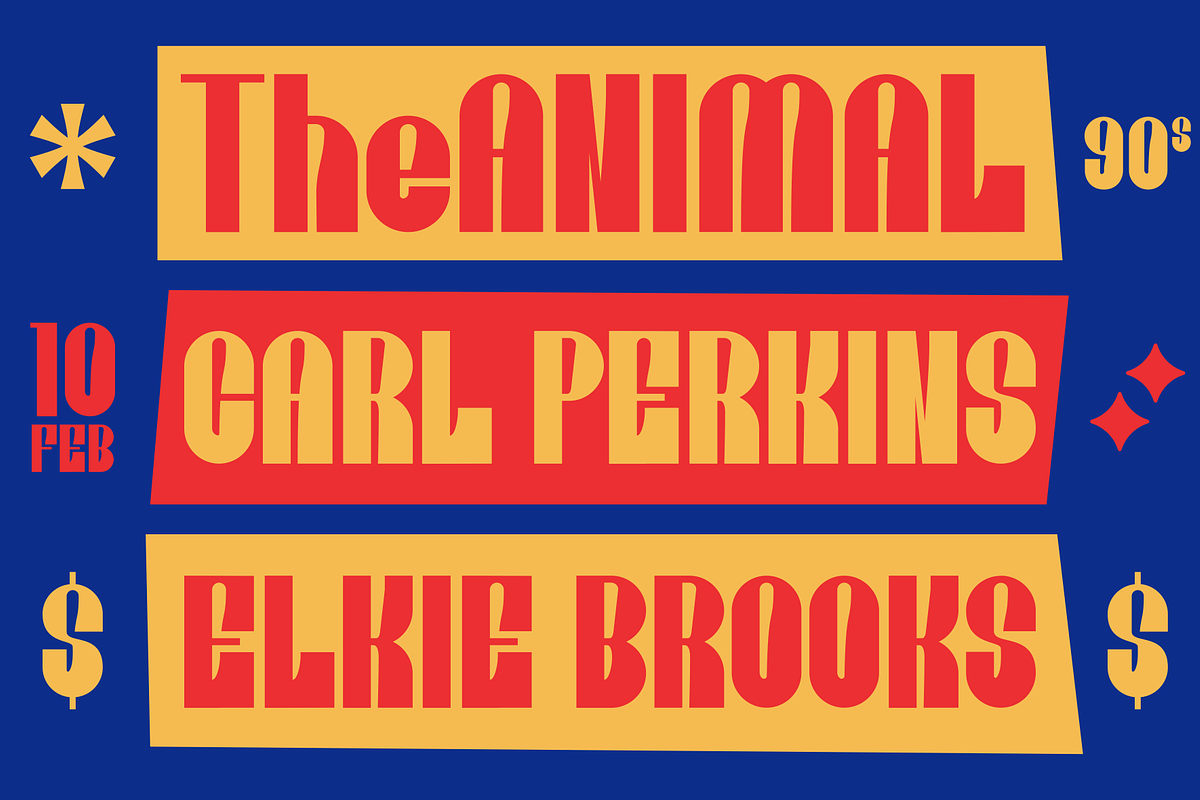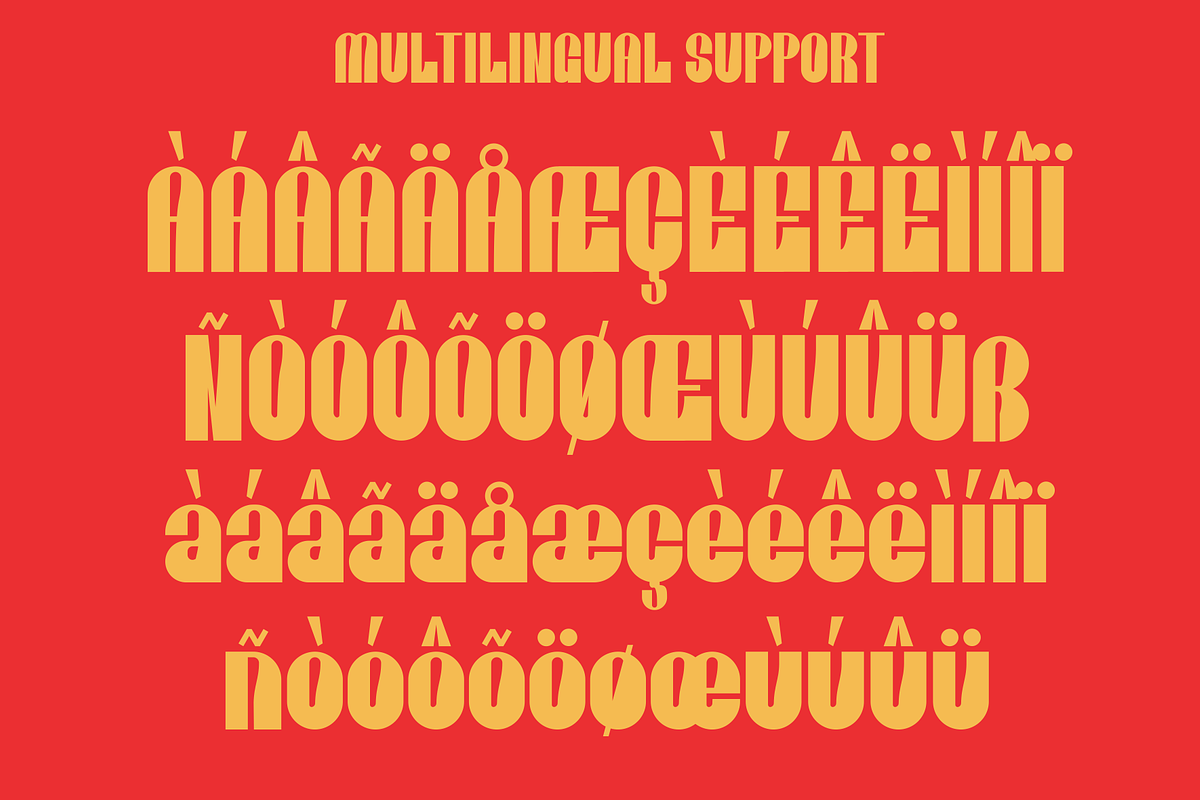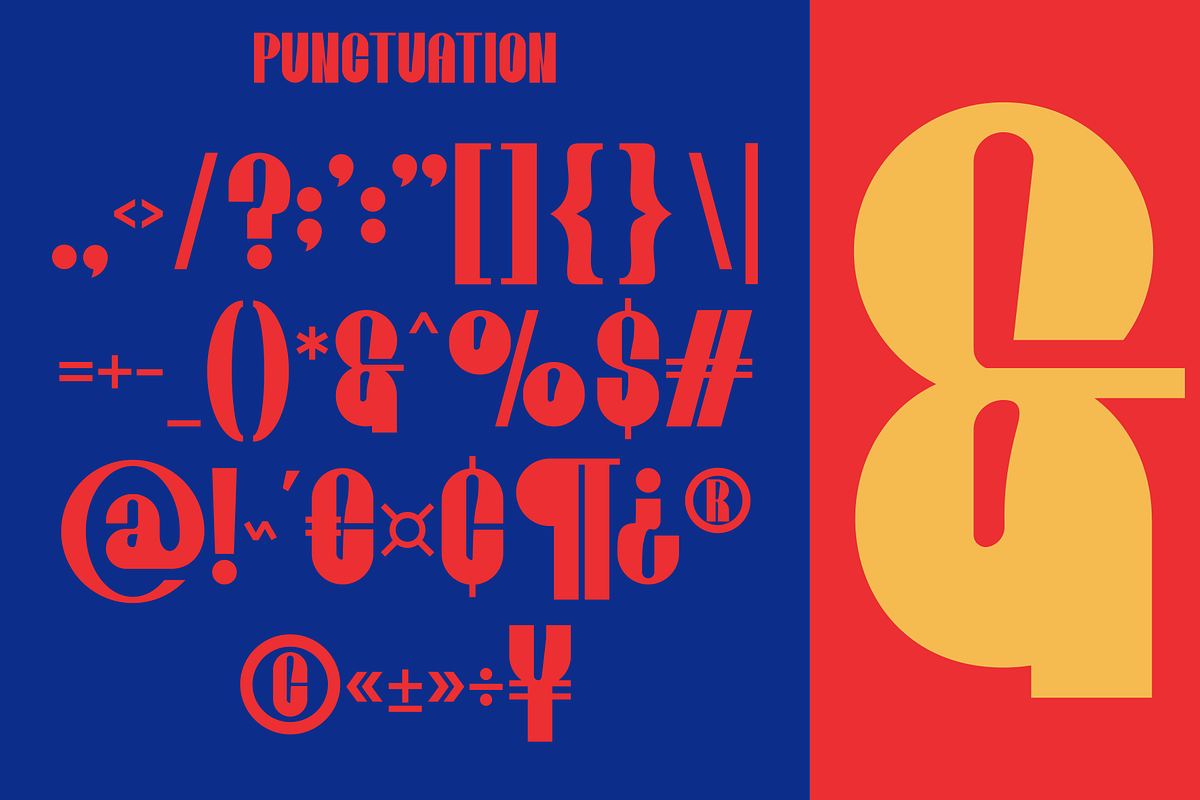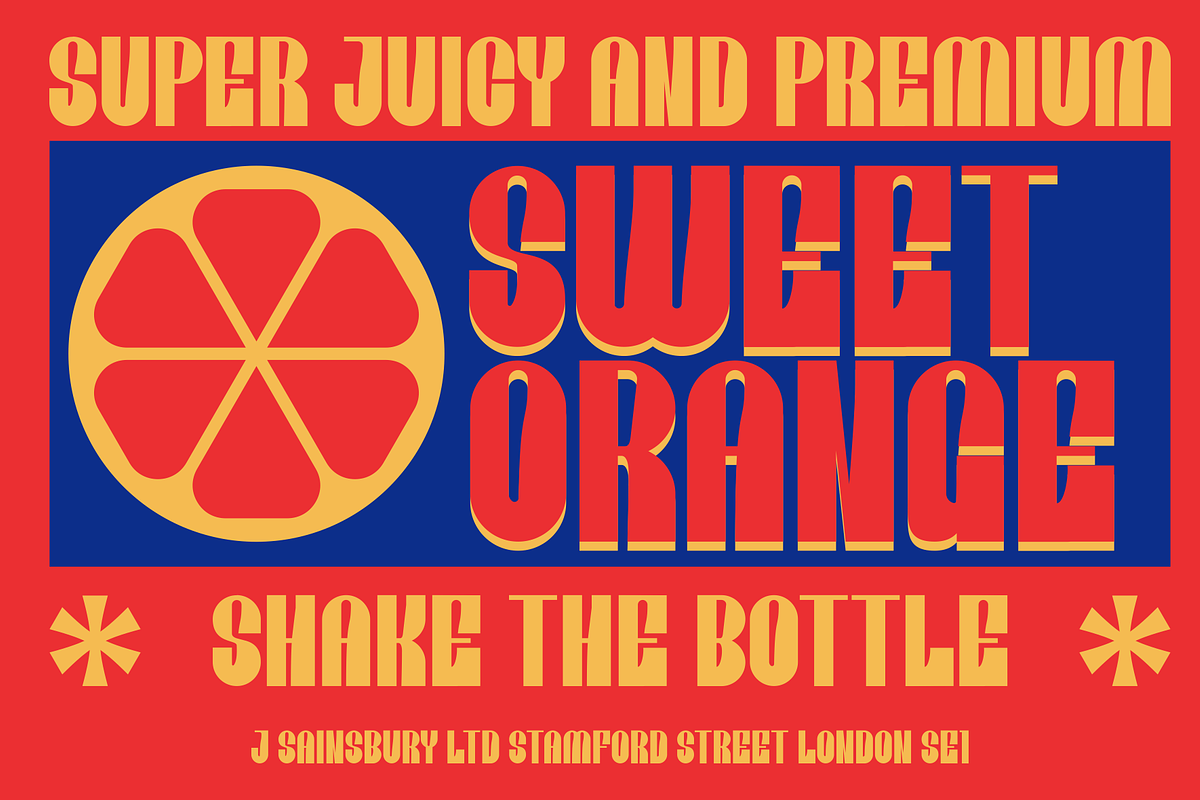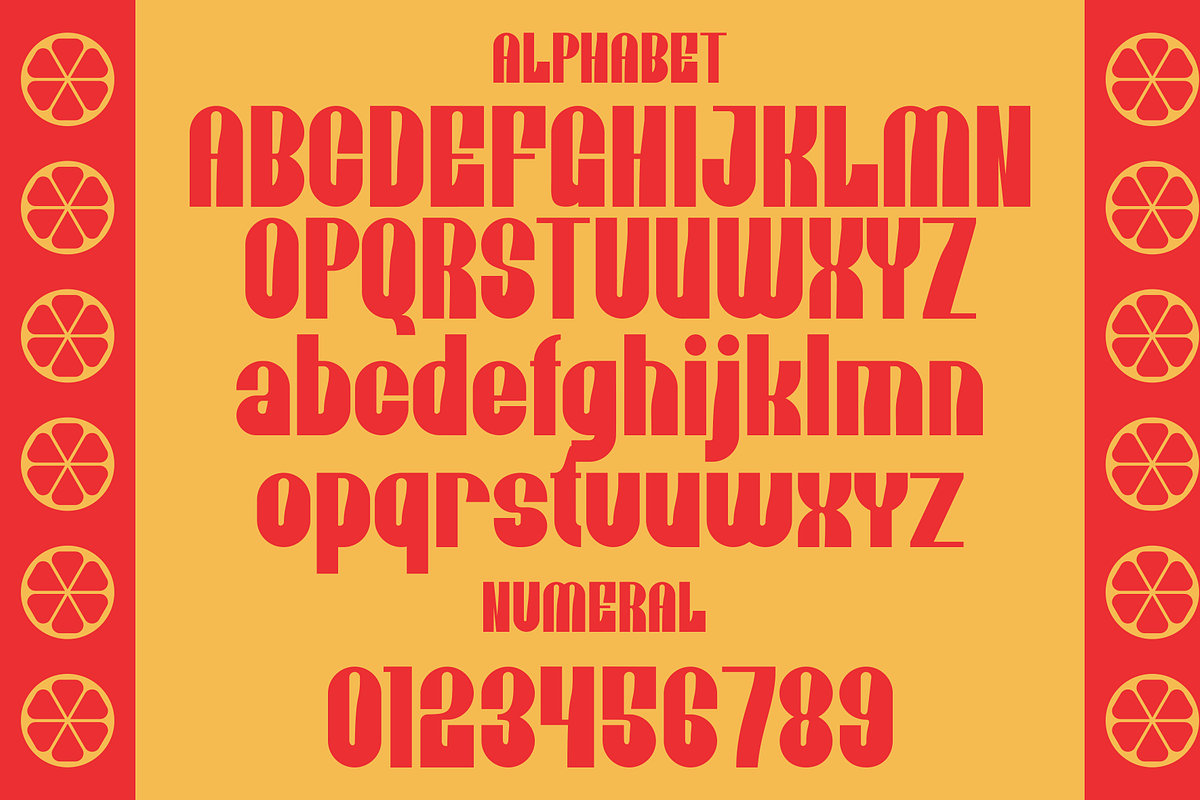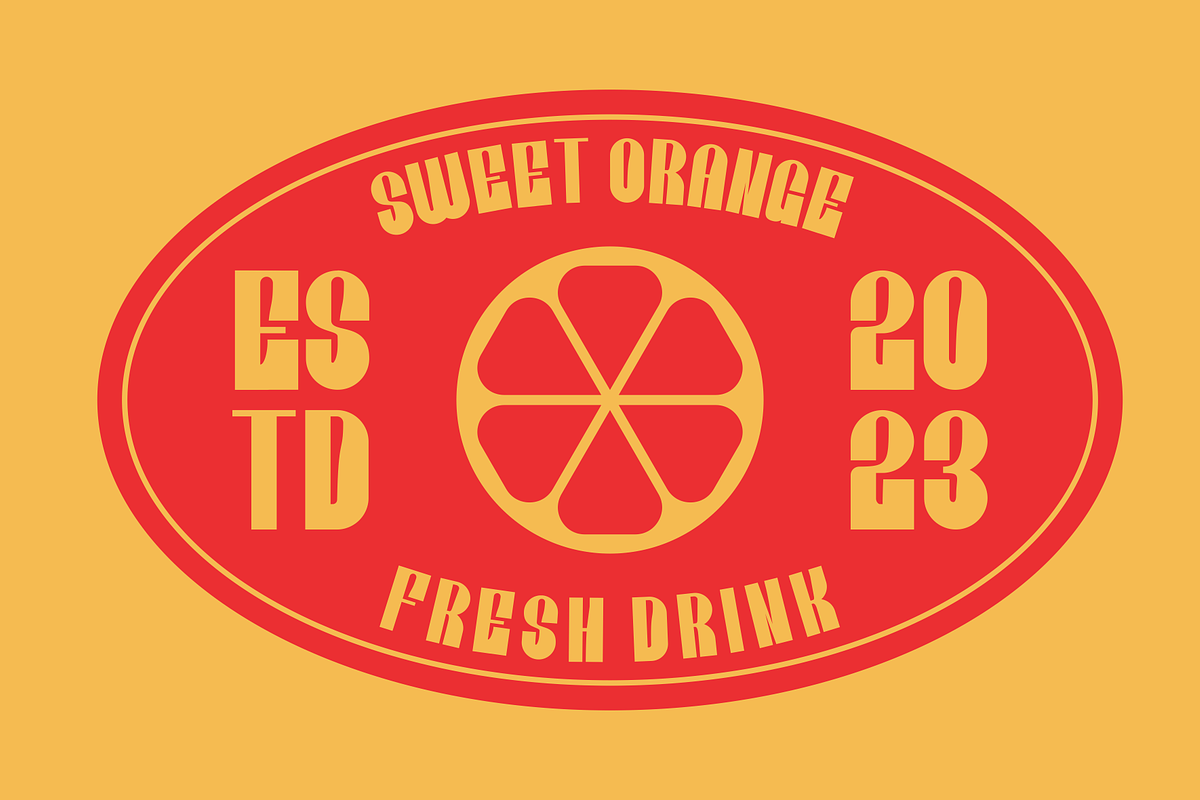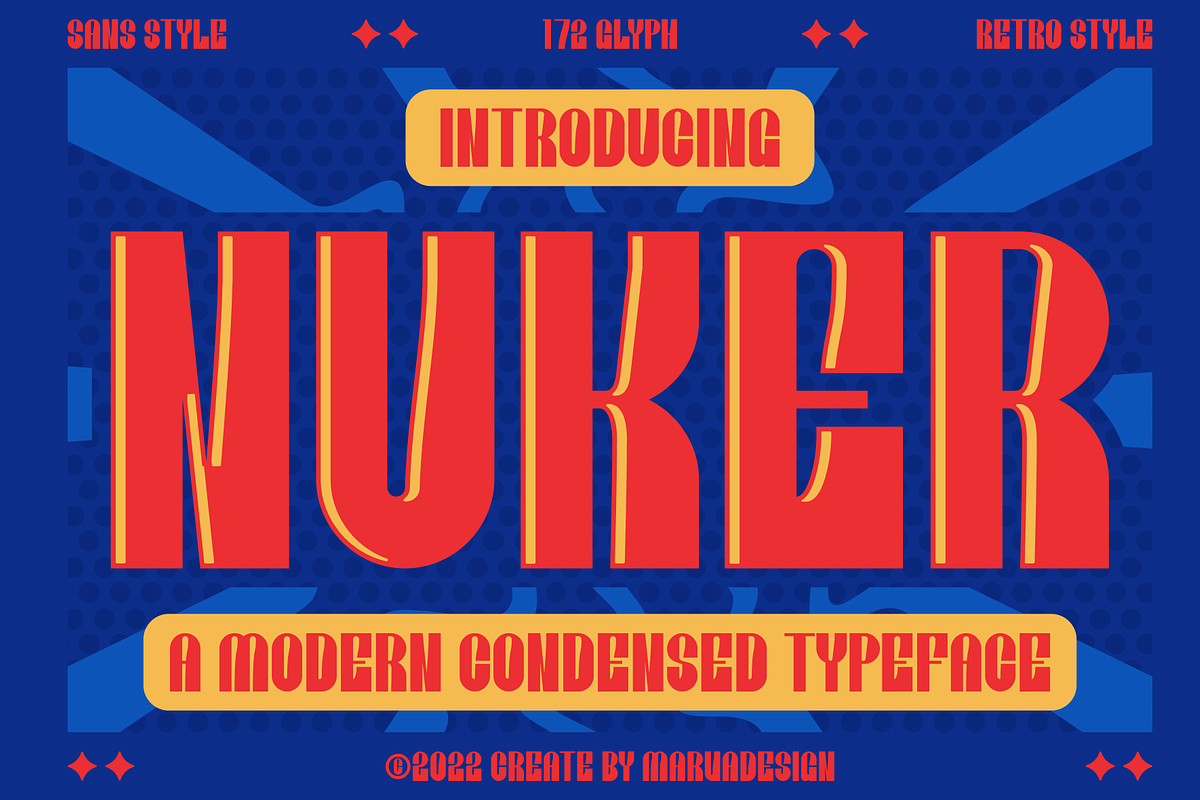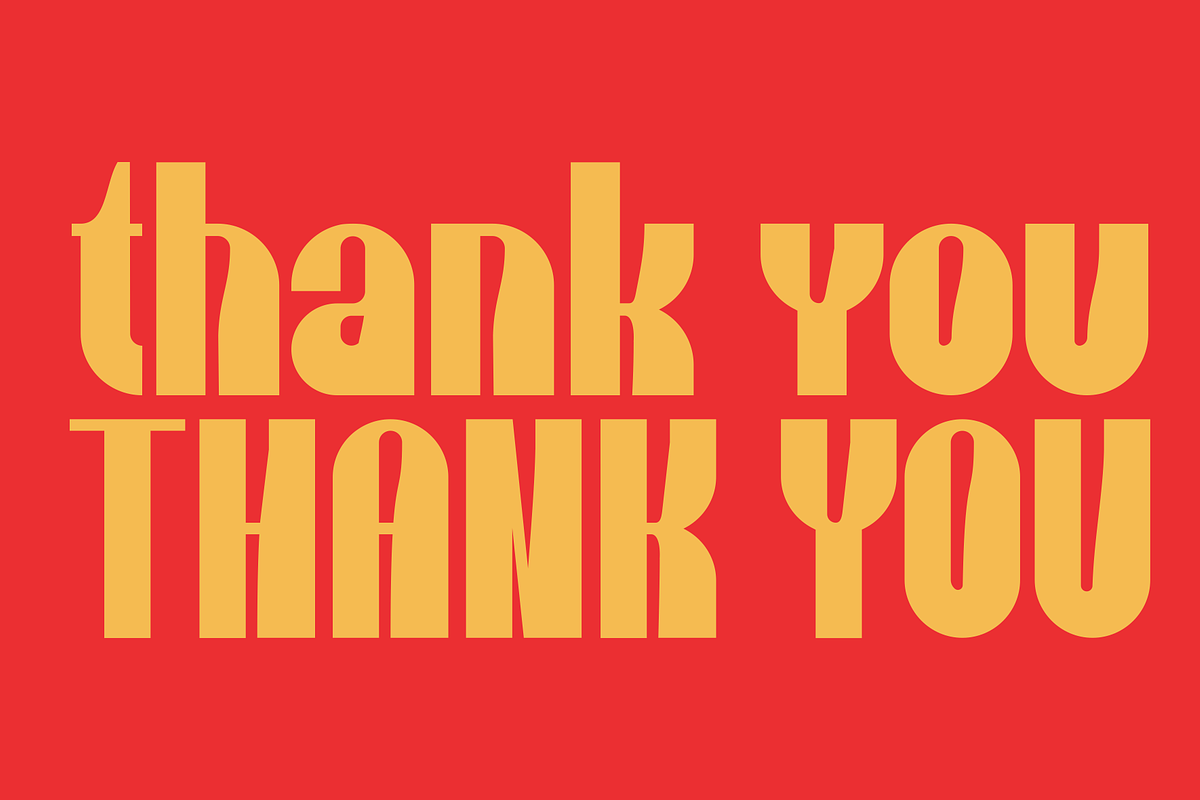
Nuker - A Modern Condensed Display
Introducing our new product Nuker Font - Modern Font is a bold and authentic display font. The font is suitable for any branding project like logo, Template Design, Product and many more. outstanding in a wide range of contexts.